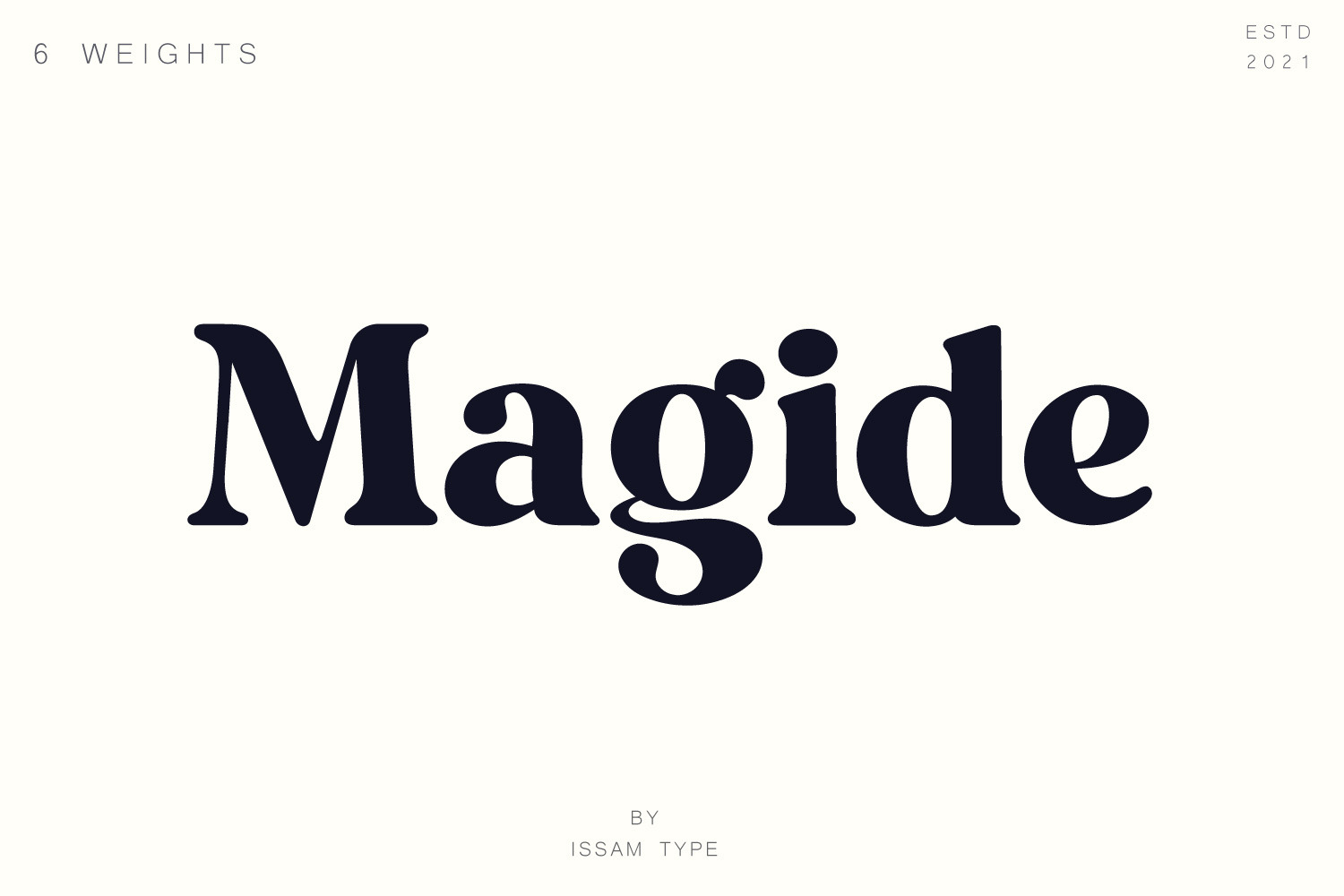
Magide – Bold Serif Font
Magide is a retro and bold serif font typeface. This font perfect for branding, Headlines, Retro designs, logos, invitation, watermark and so much more.
Magide typeface comes with Regular, Thin, bold, Black and 2 Outline font styles. Uppercase & lowercase letters, numbers, punctuation, ligatures, alternates and multilingual support.